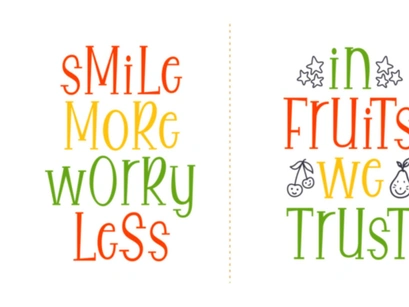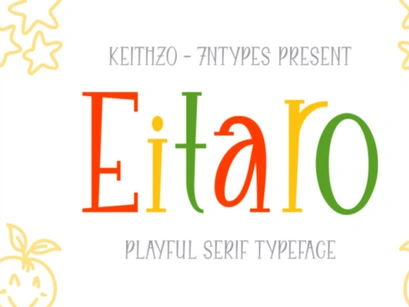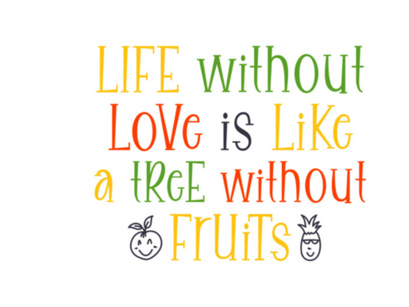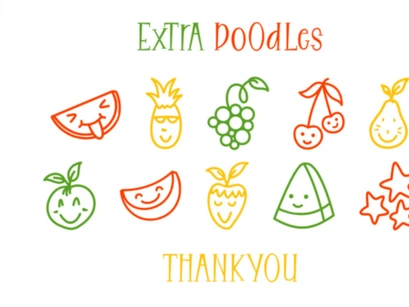
The Eitaro is a playful serif font. Its characters have a fun feel and a perfect readability. Also included are fun, food related, doodles to give your design that extra touch.